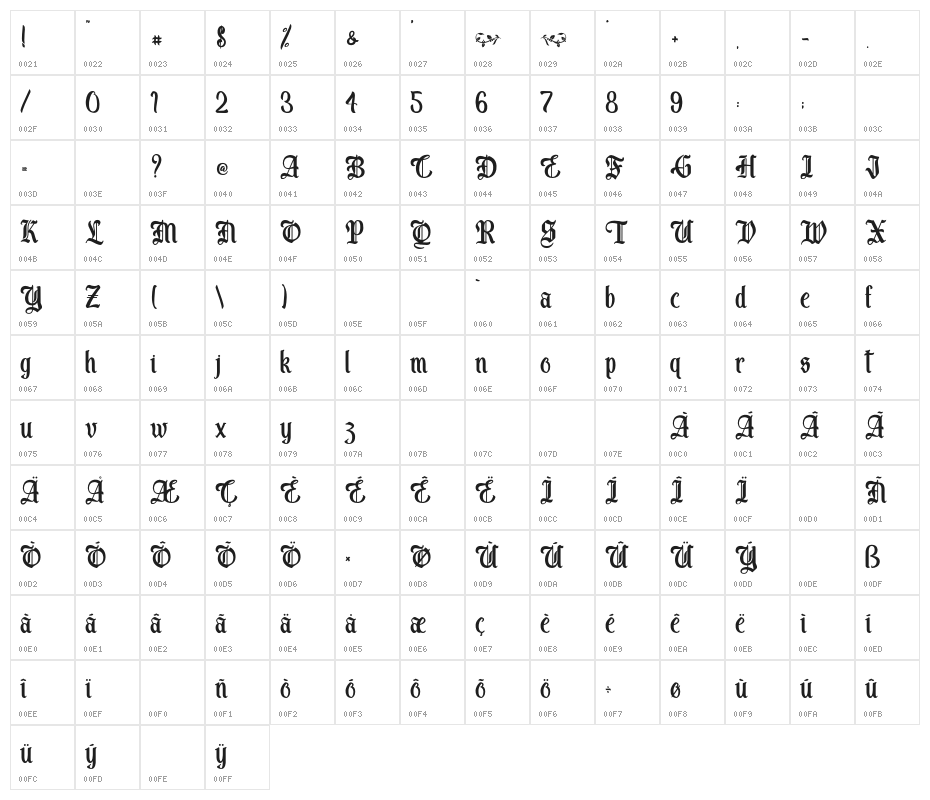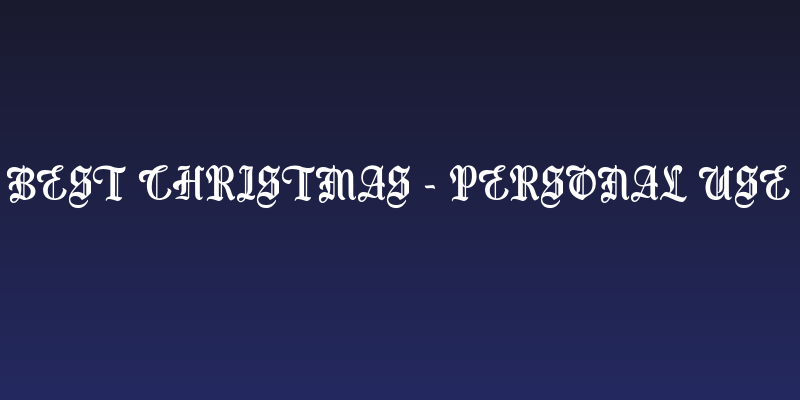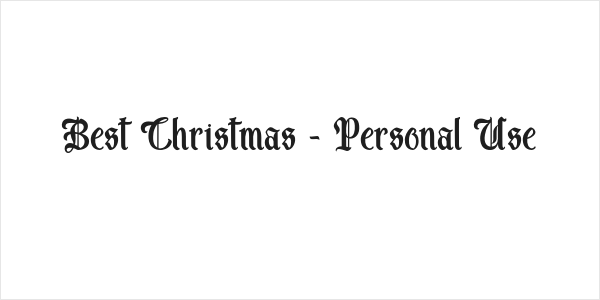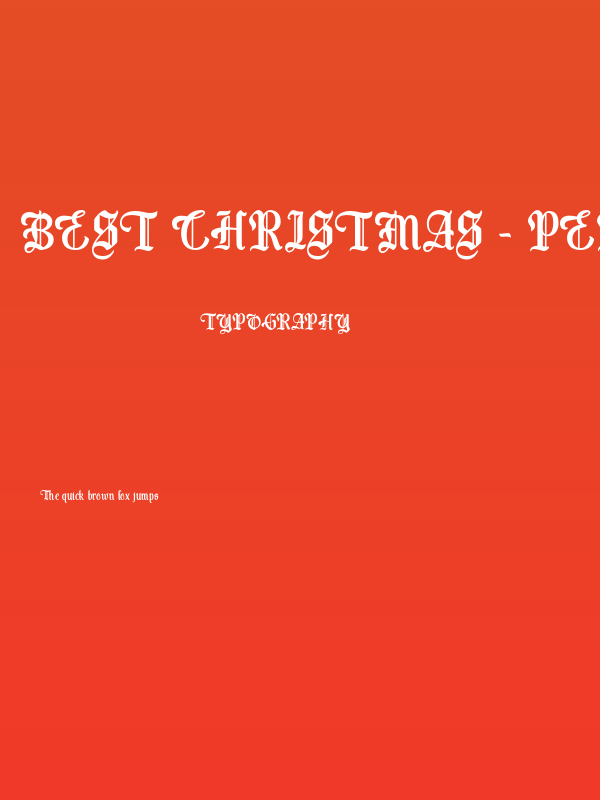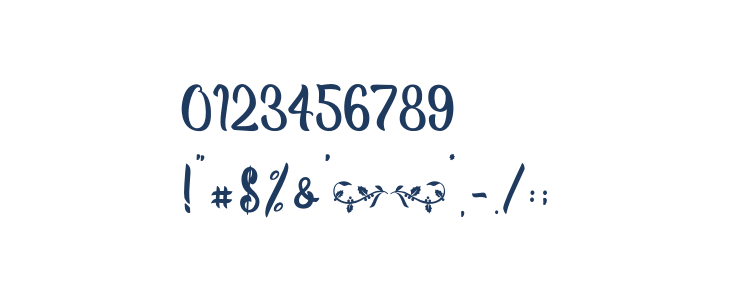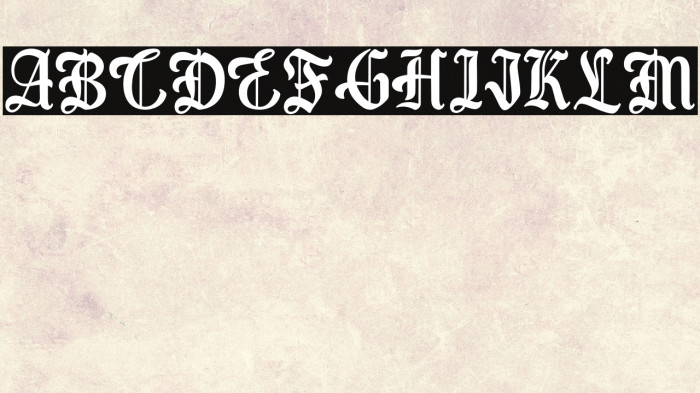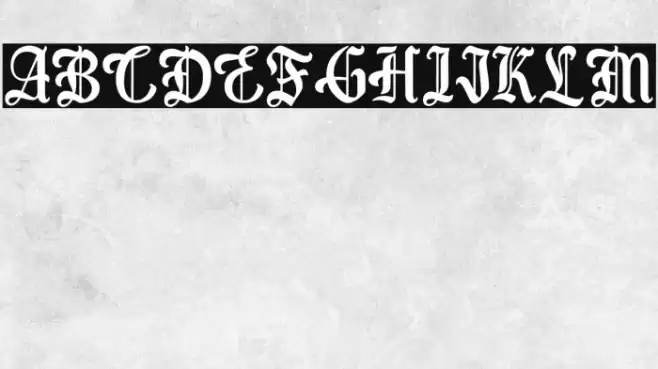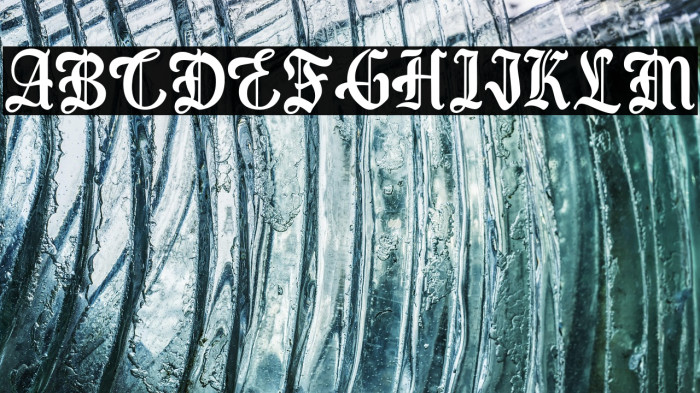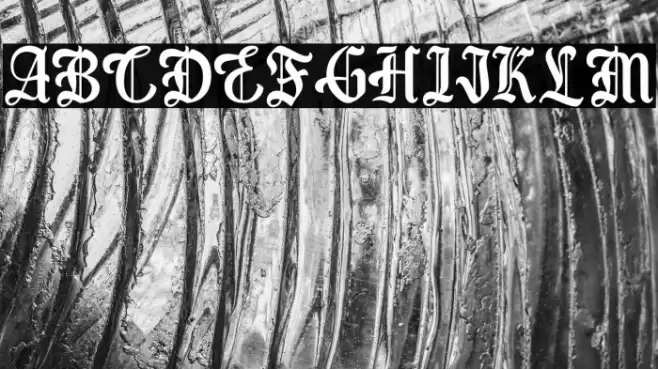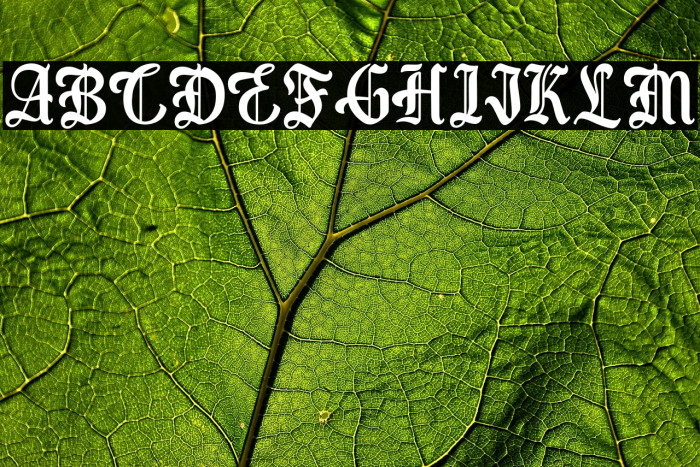
Best Christmas - Personal Use Font
This font features an ornate and decorative style reminiscent of traditional calligraphy with a festive twist. The uppercase letters are characterized by elaborate flourishes and intricate details, giving them a regal and classic appearance. The lowercase letters maintain a more straightforward yet still elegant form, providing a nice contrast to the uppercase. The numerals are bold and clear, ensuring readability while maintaining the overall decorative theme. Special characters include unique symbols that add to the font's festive and celebratory feel, making it ideal for holiday-themed projects.
| Use Case | Headlines, Logos, Decorative text |
| Proposed Projects | Ideal for holiday cards, festive invitations, decorative posters, and seasonal branding. |